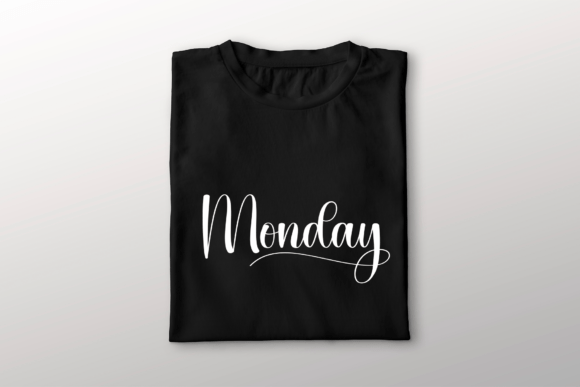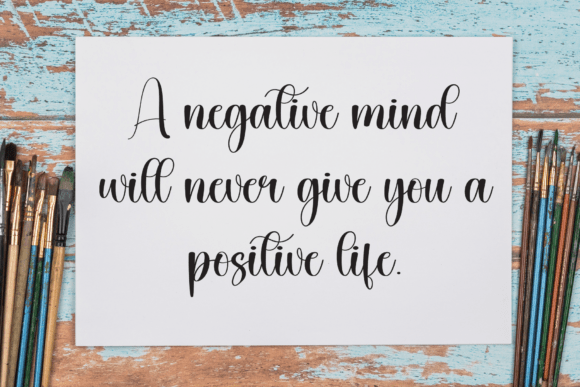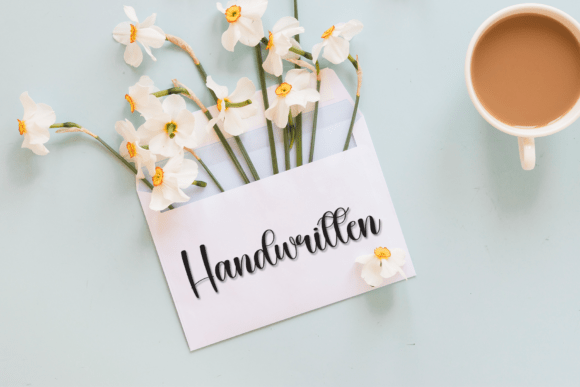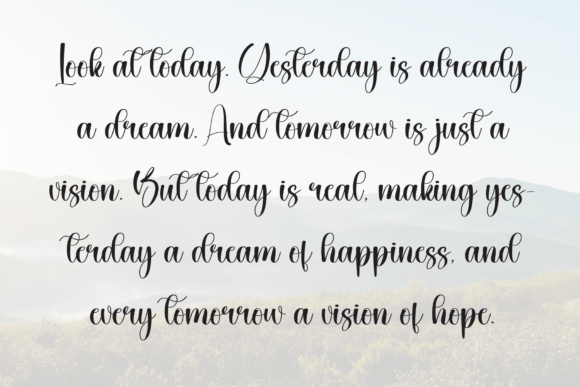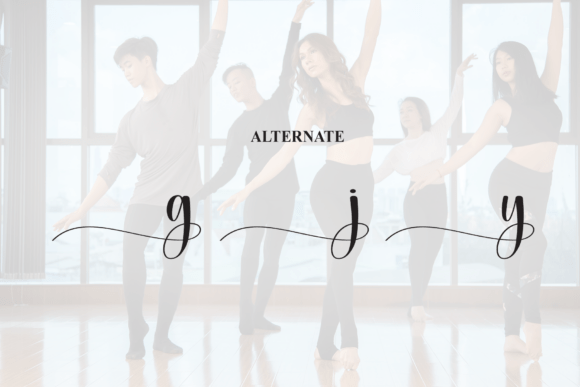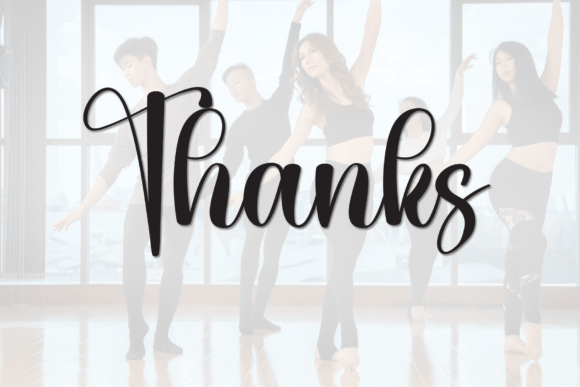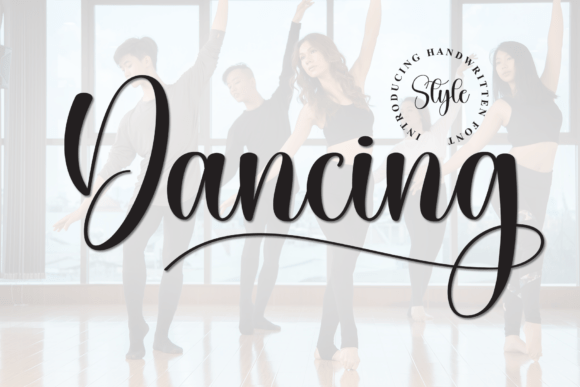
Dancing Font: Elevate Your Designs with Elegant Movement
Are you looking for a font that can add a touch of elegance and dynamism to your designs? Look no further than the Dancing Font, a beautiful handwritten script font that embodies the grace and movement of dance. With its flowing strokes and elegant curves, this font is perfect for designers and crafters who want to bring a sense of energy and creativity to their work.
The Inspiration Behind Dancing Font
The Dancing Font is an expressive handwritten script font that is full of rhythm and movement. Its design is inspired by the art of dance, with each letter and stroke carefully crafted to capture the fluidity and dynamism of movement. The font’s elegant curves and flowing strokes are reminiscent of a dancer’s fluid motion, making it perfect for designs that require a sense of energy and creativity.
Key Features of Dancing Font
The Dancing Font has several key features that make it an ideal choice for designers and crafters. Some of its notable features include:
- Elegant Curves and Flowing Strokes: The font’s elegant curves and flowing strokes capture the graceful motion of dance, bringing a sense of energy and creativity to any design.
- Modern Sophistication and Natural Charm: The Dancing Font strikes a beautiful balance between modern sophistication and natural charm, making it perfect for a wide range of creative projects.
- Fluid and Dynamic Letters: Every letter in the Dancing Font feels fluid and dynamic, embodying the art of movement and self-expression through design.
Uses of Dancing Font
The Dancing Font is versatile and can be used for a wide range of creative projects. Some of its popular uses include:
- Branding and Logos: The Dancing Font is perfect for creating elegant and dynamic logos that capture the essence of your brand.
- Wedding Invitations: The font’s elegant curves and flowing strokes make it ideal for wedding invitations, adding a touch of romance and sophistication to your designs.
- Social Media Graphics: The Dancing Font is perfect for creating engaging social media graphics that require a sense of energy and creativity.
- Posters and Flyers: The font’s fluid and dynamic letters make it ideal for creating eye-catching posters and flyers that grab attention.
- Product Packaging: The Dancing Font can add a lively and refined touch to your product packaging, making it perfect for brands that want to stand out.
Why Choose Dancing Font?
There are several reasons why you should choose the Dancing Font for your next design project. Some of the benefits of using this font include:
- Unique and Expressive Design: The Dancing Font has a unique and expressive design that sets it apart from other fonts.
- Versatility: The Dancing Font can be used for a wide range of creative projects, from branding and logos to wedding invitations and social media graphics.
- High-Quality Design: The font is designed with high-quality and precision, ensuring that it looks great in any design.
In conclusion, the Dancing Font is a beautiful handwritten script font that is perfect for designers and crafters who want to add a touch of elegance and dynamism to their designs. With its flowing strokes and elegant curves, this font is ideal for a wide range of creative projects, from branding and logos to wedding invitations and social media graphics. Its unique and expressive design, ease of use, versatility, and high-quality design make it a great choice for anyone looking to elevate their designs.